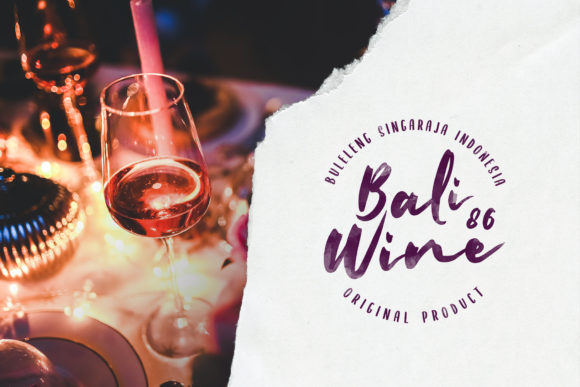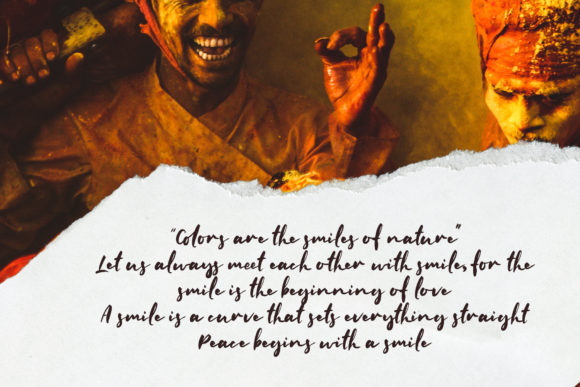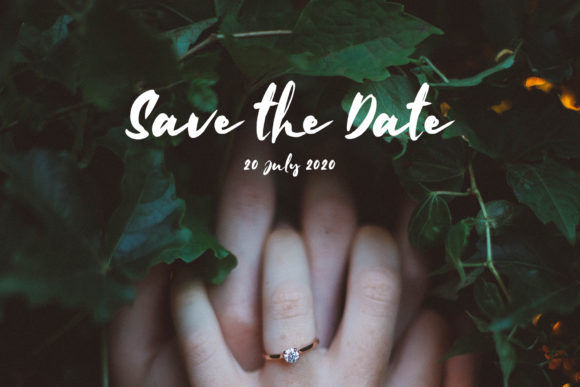
Introduction to Mallent Font
Mallent is a strong and bold script that’s made with a dry brush.
It will effortlessly make any design project stand out This font is PUA encoded which means you can access all of the magical glyphs and swashes with ease.
Mallent Font offers exceptional quality and versatility, making it a valuable addition to your design toolkit. Whether you’re creating for personal projects or commercial use, Mallent Font delivers professional results.